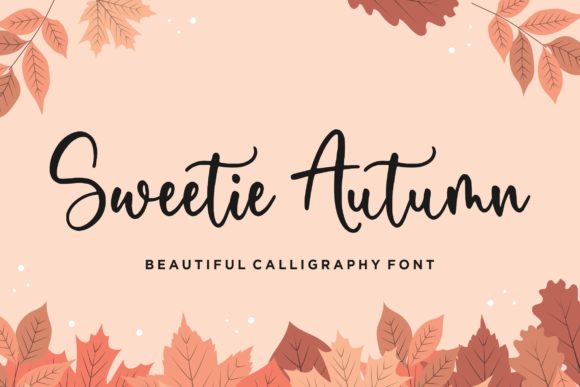
Dive into the enchanting world of Sweetie Autumn, where script typography takes on an elevated allure. Crafted by the renowned Balpirick, this font family embodies the epitome of elegance, exuding a contemporary flair that effortlessly complements any fashion logo.
Indulge in the symphony of curves that dance across your screen, each stroke a testament to the artistry of timeless calligraphy. Sweetie Autumn's balanced and varied design invites your imagination to soar, empowering you to create captivating visuals that resonate with your audience.
Whether you're seeking to elevate your brand identity or simply add a touch of sophistication to your designs, Sweetie Autumn is your ultimate companion. Its versatility extends beyond fashion logos, seamlessly adapting to a myriad of creative endeavors.
Experience the magic of Sweetie Autumn today and embark on an extraordinary typographic journey. Its impeccable form and enchanting aura will captivate your senses, leaving an unforgettable impression on all who encounter your creations.